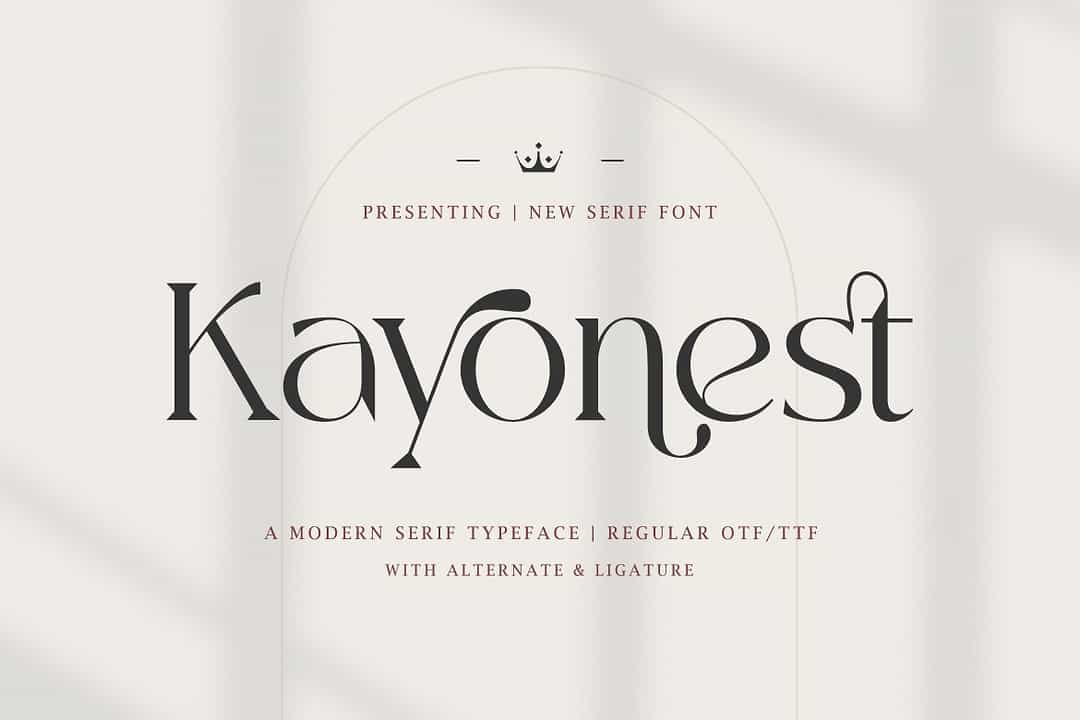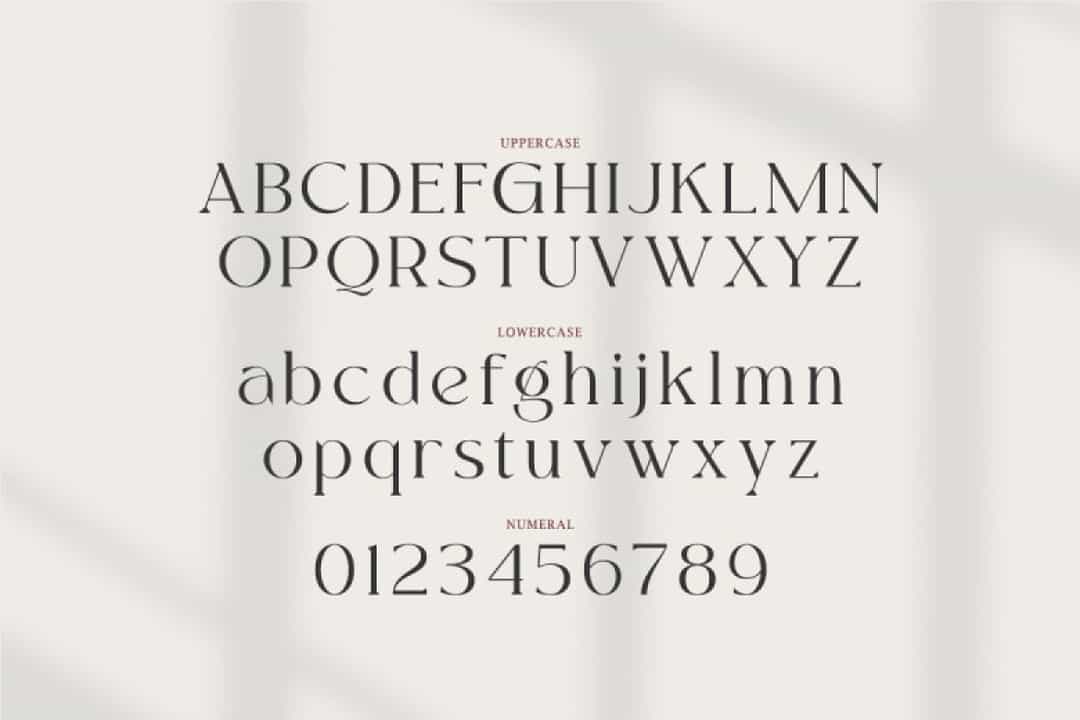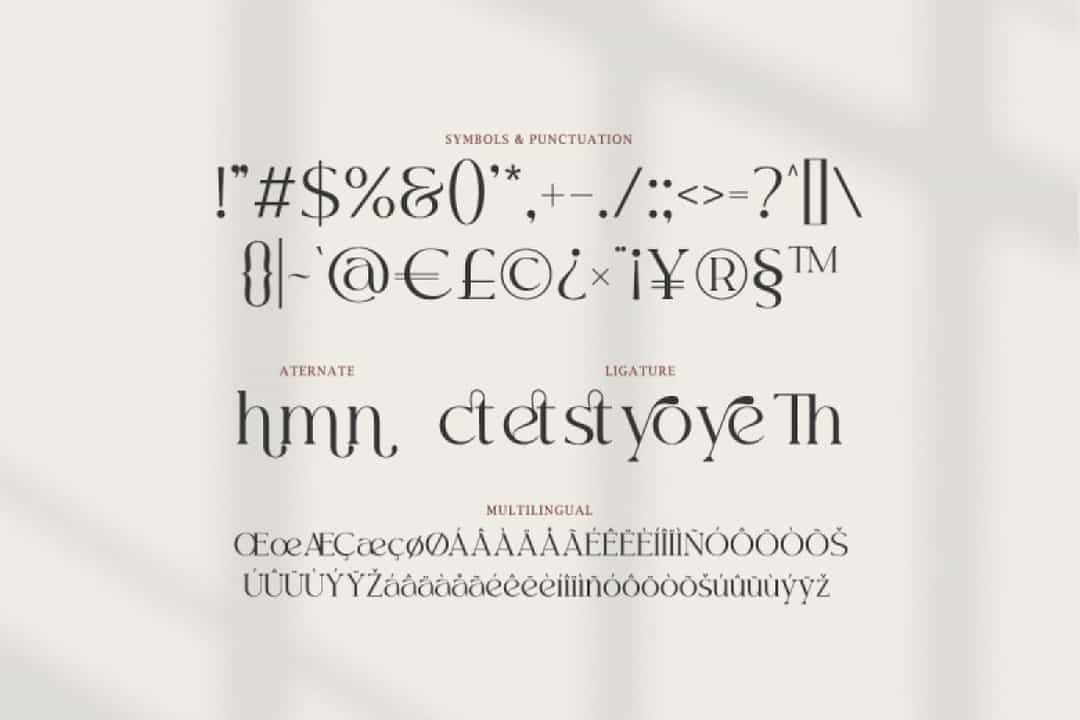
Kayonest is a modern serif font that mixes classic influences into an eye-catching contemporary design. Perfectly suitable for a range of projects and with multiple layout options available. Use it to achieve elegant yet refined appearance while offering maximum flexibility!